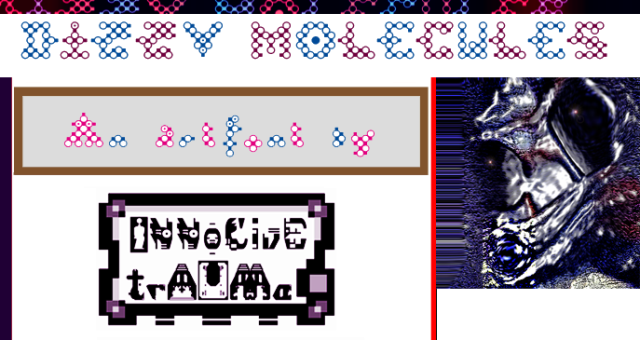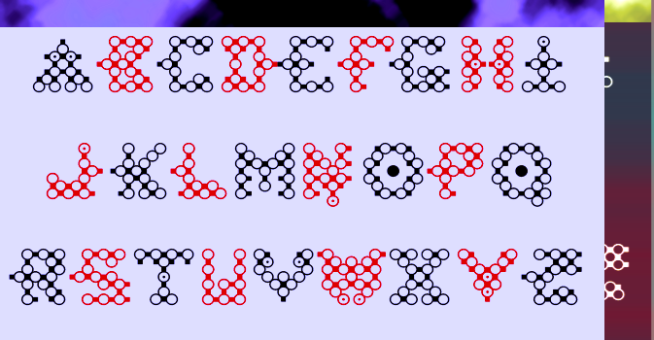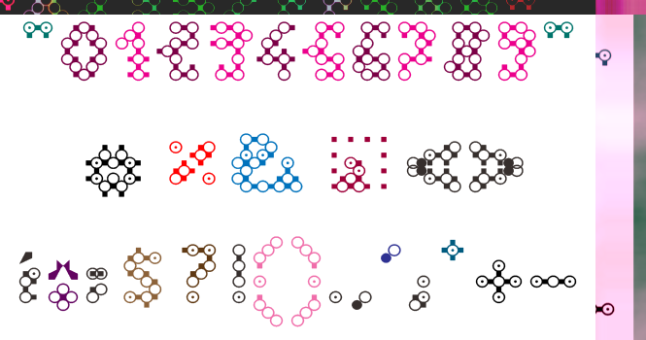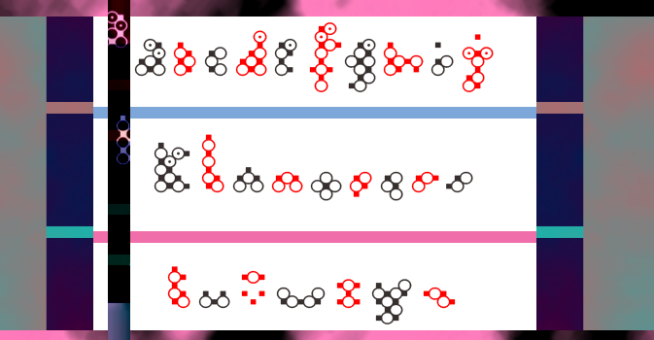
trAUMa 52 / Dizzy Molecules
"Dizzy Molecules ", like all the "trAUMa" series, works at the frontier between Art & Type Design, Figuration & Abstraction, each font is a comprehensive world in which every glyph is a "living" entity. But put together they can produce your messages in the most accurate way.